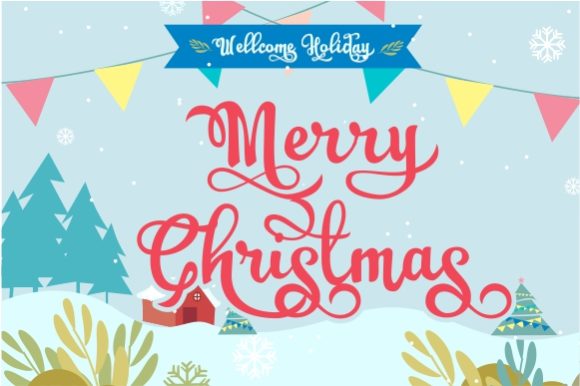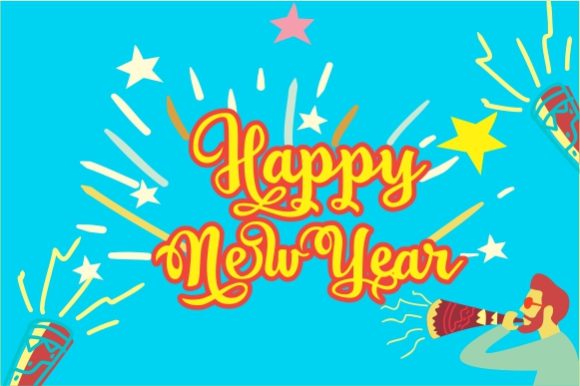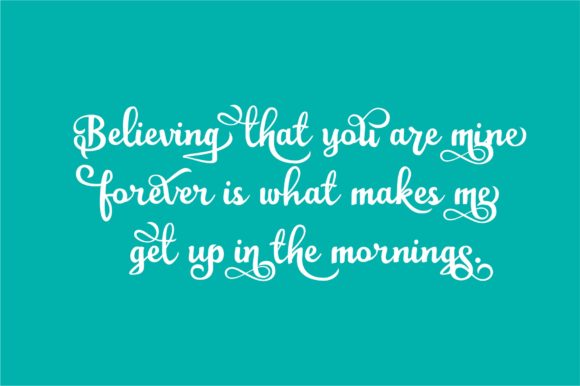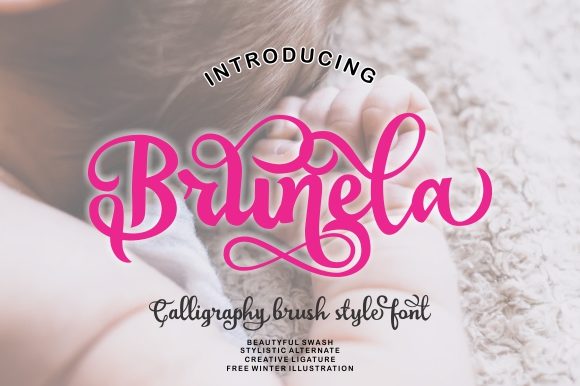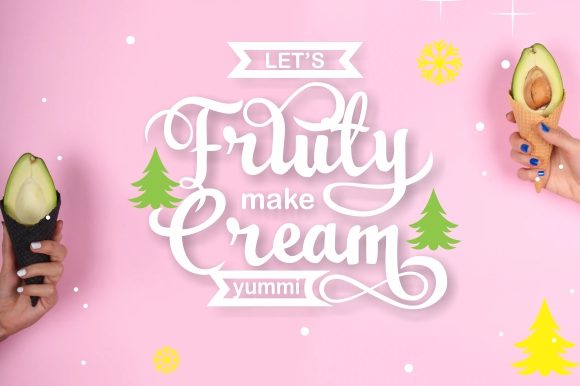
The Designer’s Delight: Brunela Font
I still remember the project like it was yesterday. I was working on a whimsical branding campaign for a children’s toy company, and I was struggling to find the perfect font. The client wanted something playful, yet elegant; something that would appeal to both kids and parents. That’s when I stumbled upon Brunela Font, and I was immediately smitten! 😍
Brunela is a whimsical and cute handwritten font that features beautiful swashes. Its playful and dynamic charm won me over, and I knew I had to share it with the world. In this article, I’ll give you an honest review of Brunela Font, a practical guide on how to use it, and some helpful tips and tricks.
- ✨ Beautiful swashes and ligatures that add a touch of elegance to any design
- 🎨 Versatile and suitable for a wide range of design projects, from branding to invitations
While Brunela Font is an amazing addition to any design project, there are a few things to keep in mind:
- 🤔 Some swashes and ligatures may not work well with certain font sizes or styles
- ⚠️ Limited support for non-English characters
Brunela Font was designed by a talented type designer who wanted to create a font that would bring joy and playfulness to design projects. The designer’s inspiration came from traditional handwriting, calligraphy, and lettering art. The result is a font that’s both elegant and whimsical, perfect for adding a touch of personality to any design.
Q: What is Brunela Font?
A: Brunela Font is a whimsical and cute handwritten font that features beautiful swashes and ligatures.
Q: Does Brunela Font support non-English characters?
A: Brunela Font has limited support for non-English characters, so please check the font’s character set before using it for multilingual projects.